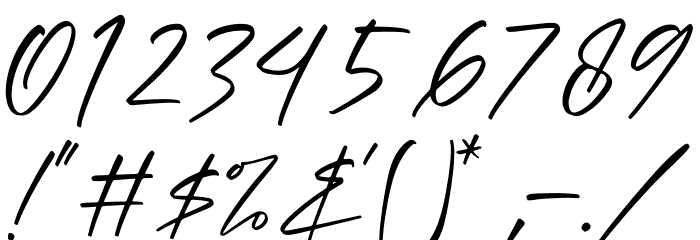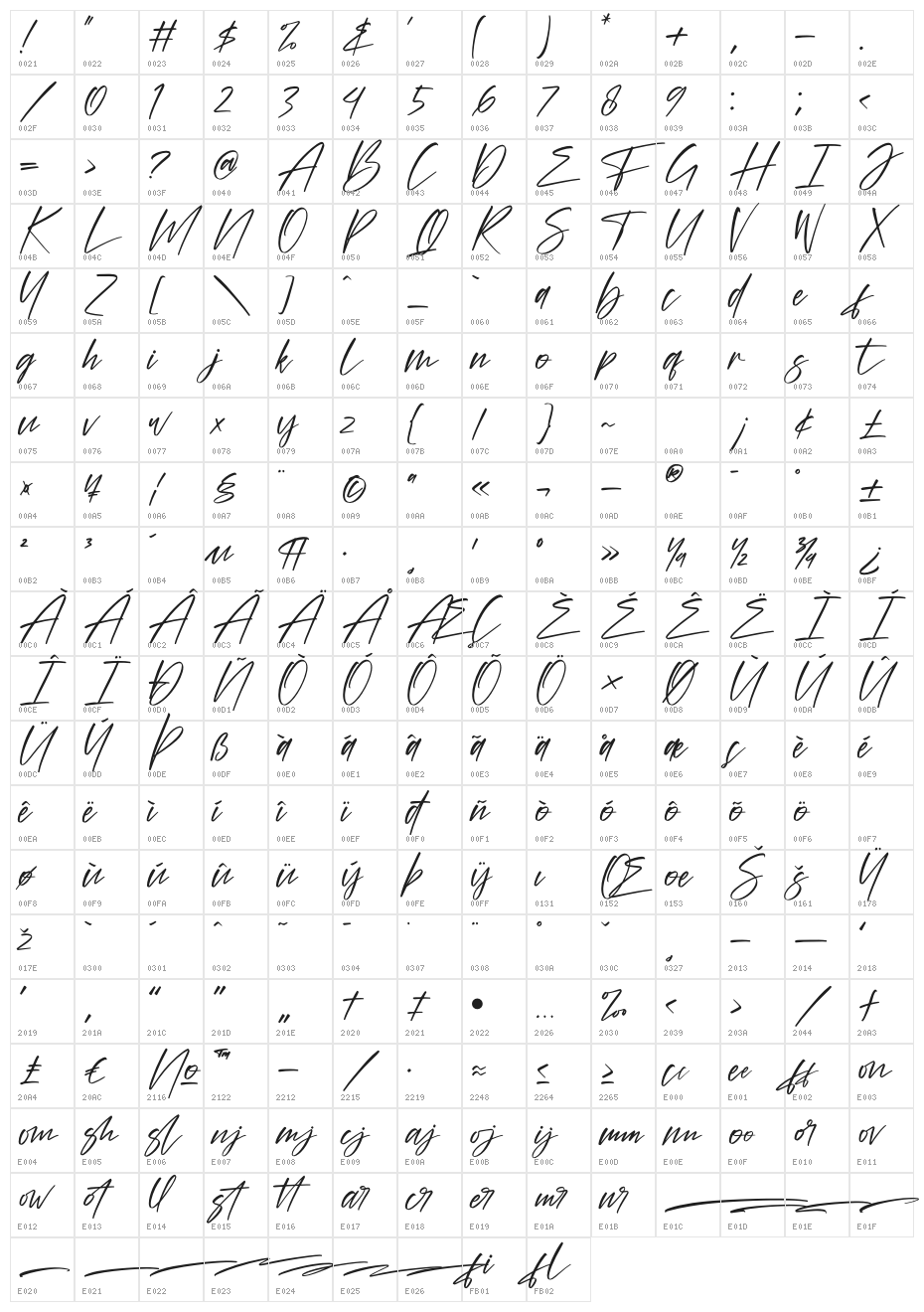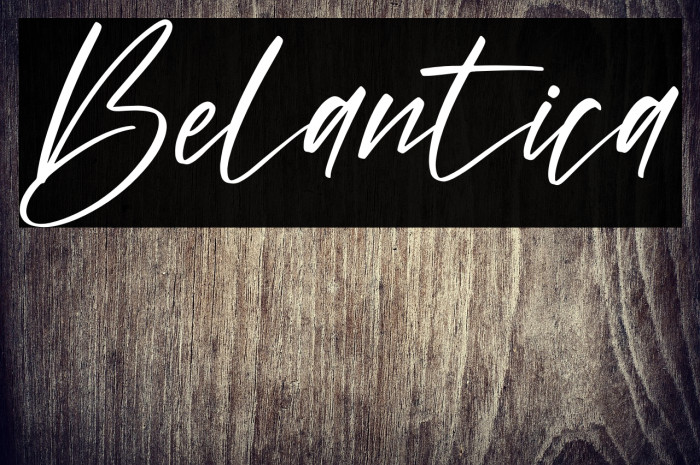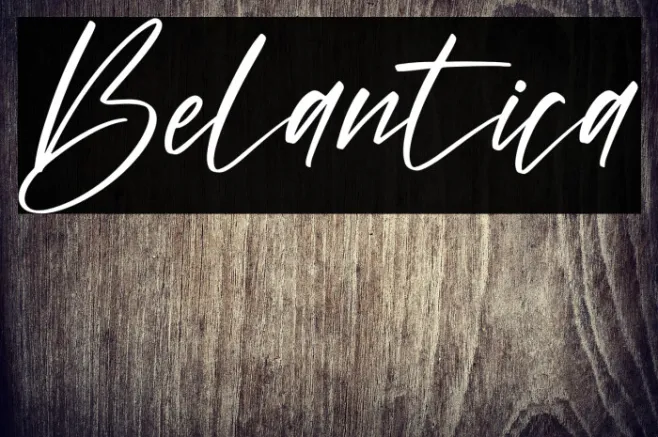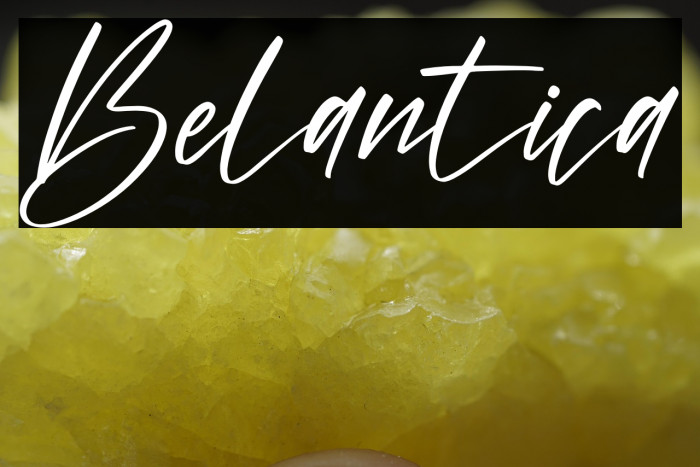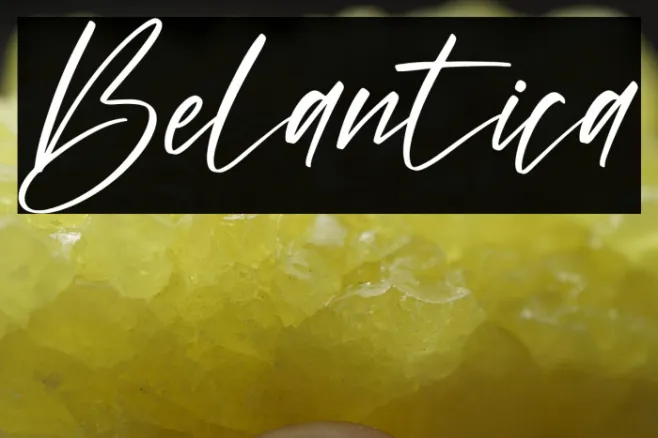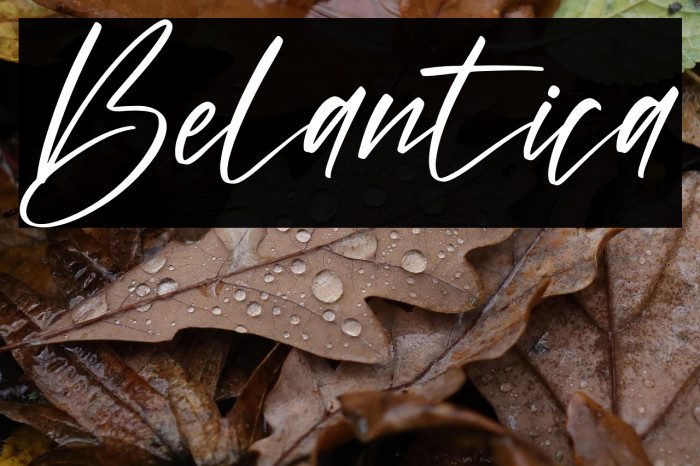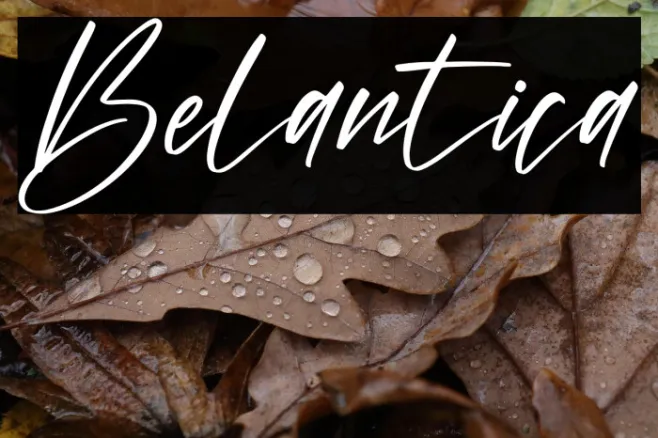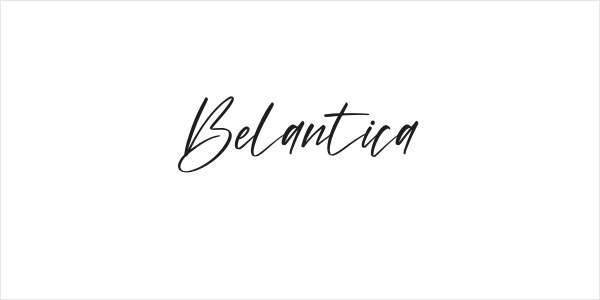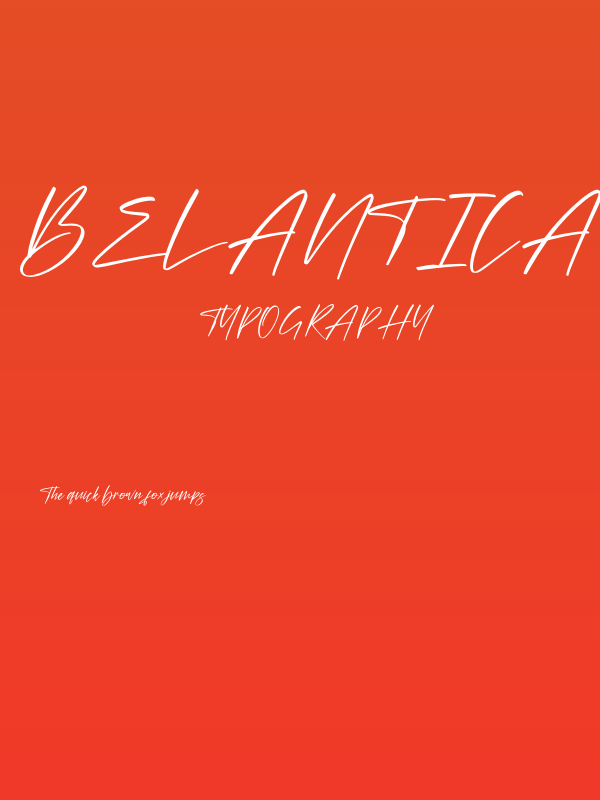
Belantica Font
Belantica Description
This font exudes a dynamic and energetic feel, characterized by its handwritten, cursive style. The letters are fluid and connected, giving a sense of movement and spontaneity. The uppercase letters are slightly more structured, while the lowercase letters are more freeform, adding to the casual and informal appearance. The numbers and special characters maintain the same lively style, ensuring consistency across all elements. The strokes vary in thickness, providing a medium contrast that enhances readability while retaining the font's artistic flair.
| Proposed Projects | Ideal for creative projects such as greeting cards, invitations, branding, and social media graphics where a personal touch is desired. |